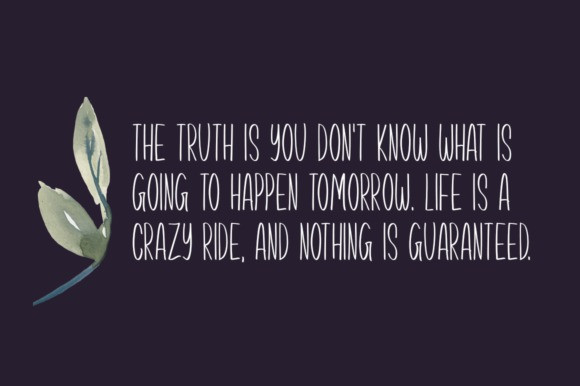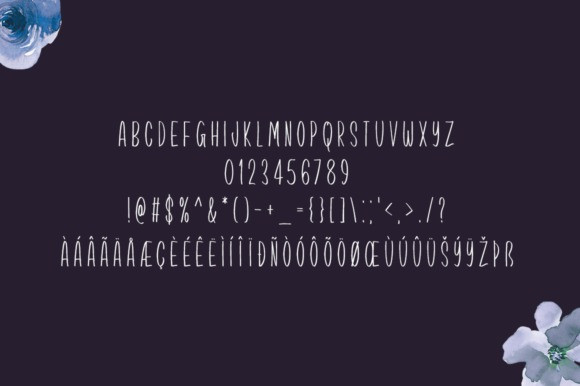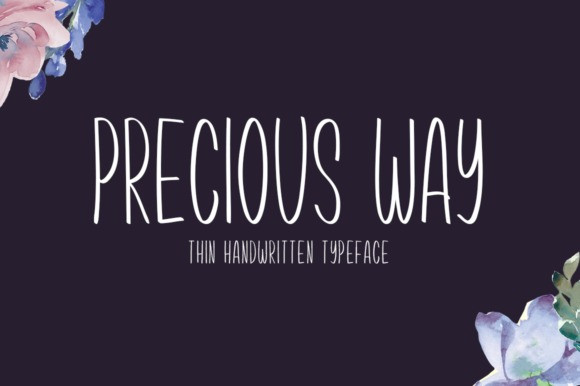
Precious Way Handcrafted Font
Introducing New Fonts. Precious Way is a thin and simple lettered handwritten font. It can easily be matched to an incredibly large set of projects, so add it to your creative ideas and notice how it makes them stand out!